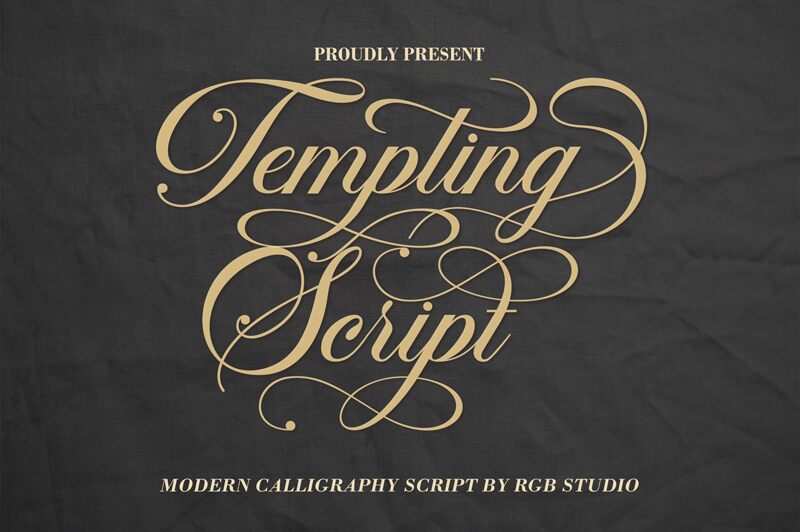
Tempting Script is a captivating calligraphic font that exudes elegance and sophistication. Designed by RGB Studio, this script font seamlessly blends classic charm with a modern sensibility, creating a truly enchanting aesthetic.
The intricate character variations and decorative flourishes lend an air of refined artistry, perfectly suited for projects seeking a touch of timeless style. From wedding invitations to luxury brand identities, this versatile font effortlessly elevates any design, seamlessly transitioning between formal and casual applications.
Tempting Script's distinctive strokes and harmonious flow make it an alluring choice for designers seeking to imbue their work with a sense of refined sophistication and timeless appeal.